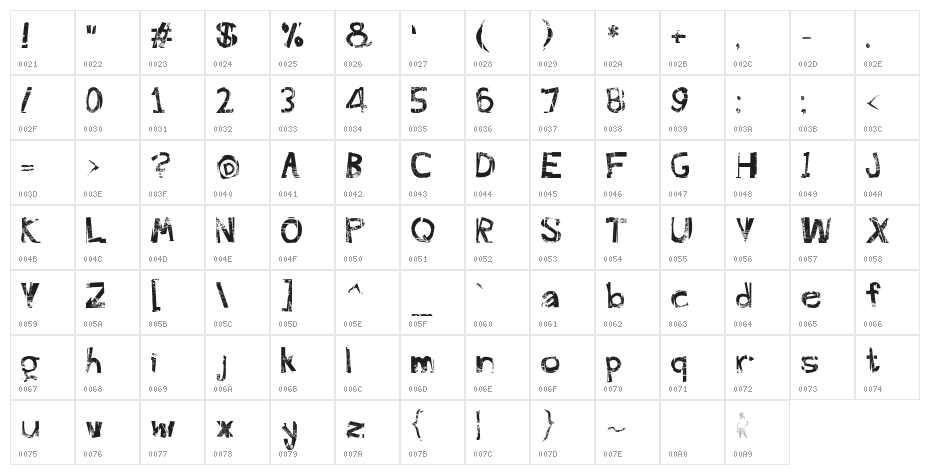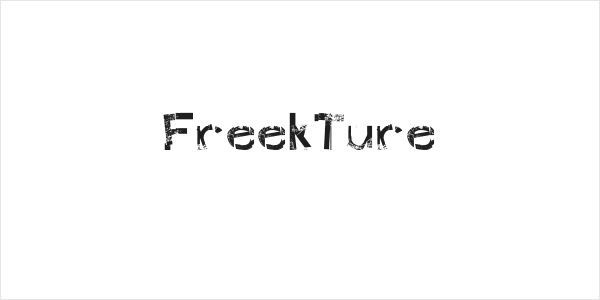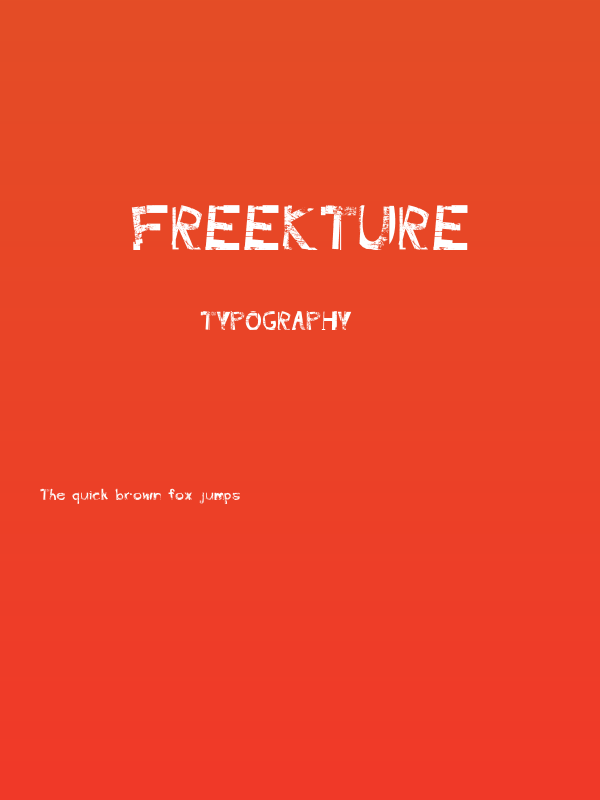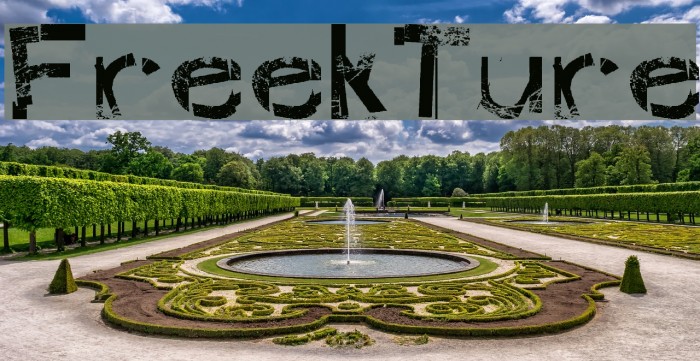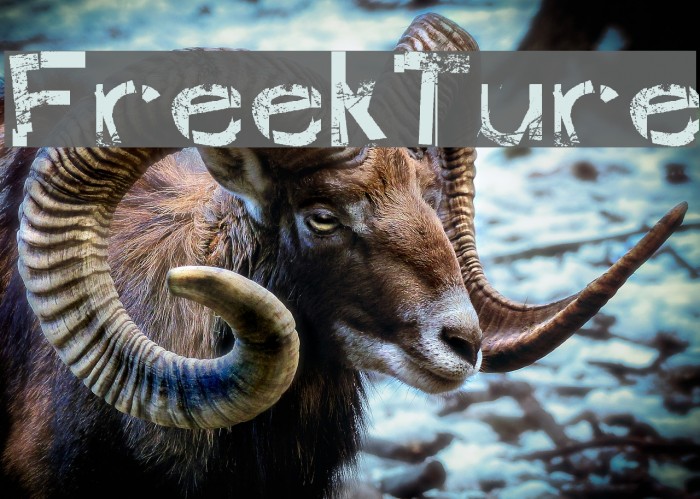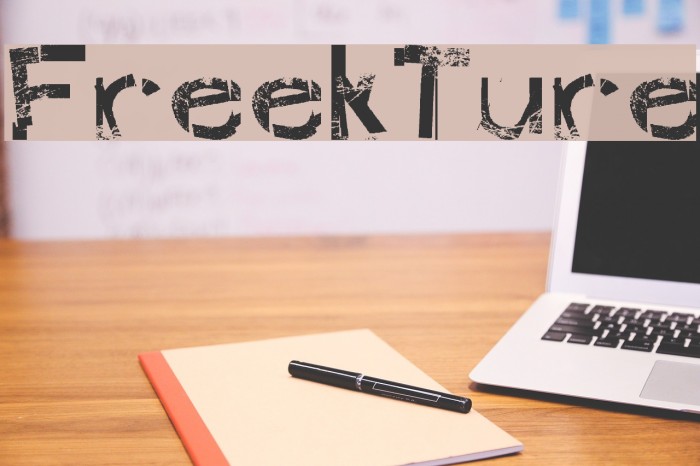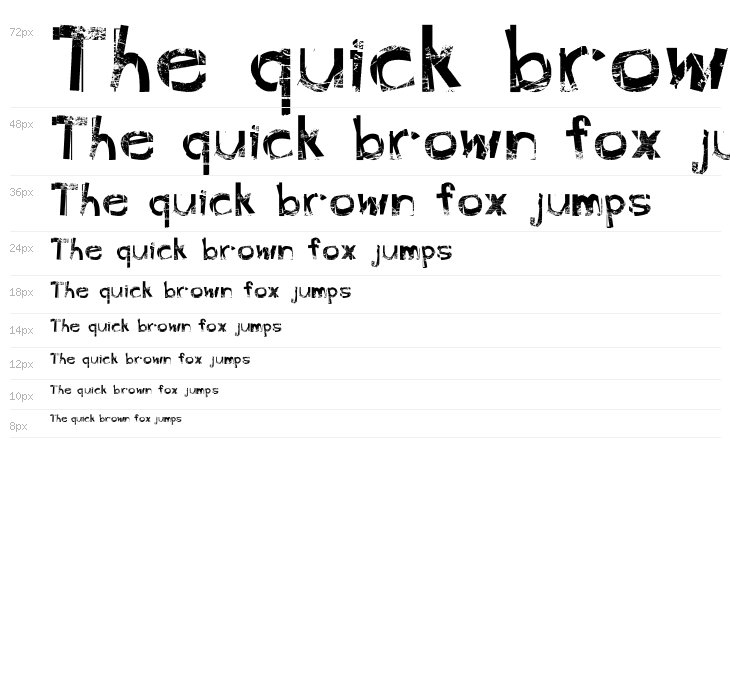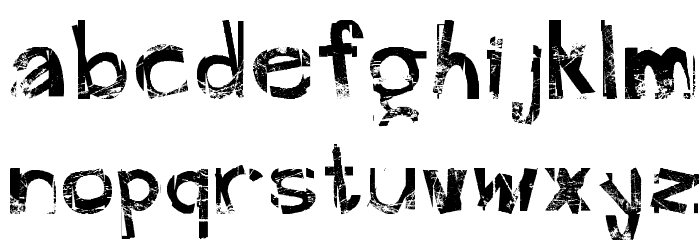
FreekTure Font
FreekTure Description
This font features a distressed, grunge style with a rough, textured appearance. Each character is uniquely designed with irregular edges and a worn-out look, giving it a rebellious and edgy feel. The uppercase and lowercase letters maintain a consistent style, while the numbers and special characters follow the same rugged theme. The font's chaotic and artistic nature makes it stand out, perfect for projects that require a bold statement. Its uneven texture and bold strokes create a dynamic visual impact, ideal for capturing attention.
FREEKTURE UPPERCASE
FREEKTURE LOWERCASE
FREEKTURE OTHER CHARS
| Overall Style | Grunge, Edgy |
| Proposed Projects | Ideal for album covers, posters, streetwear branding, and edgy graphic designs. |